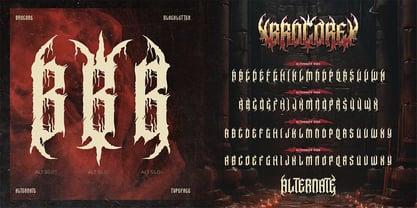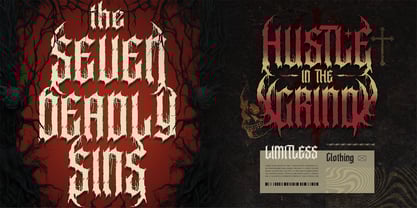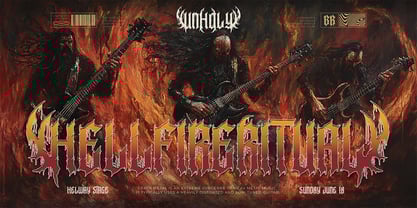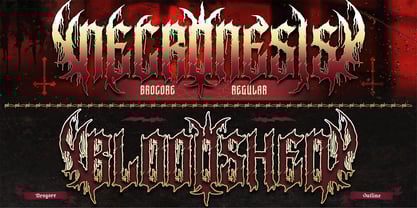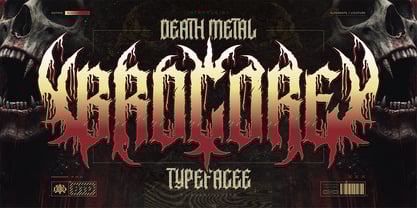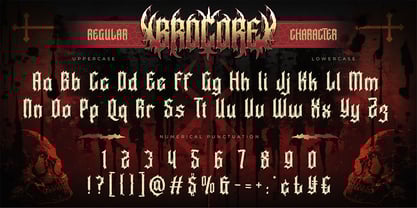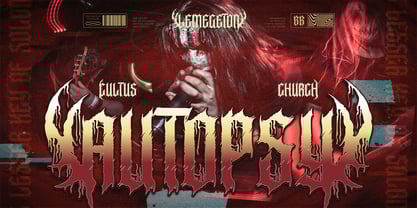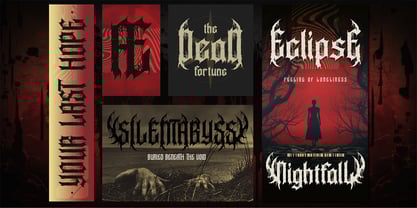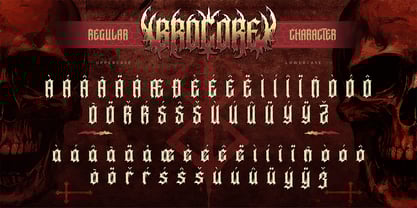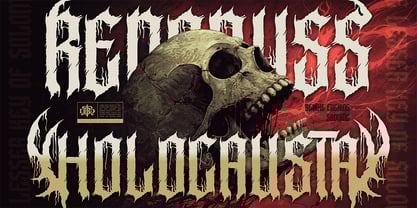
Brocore
von Burntilldead
Die Schriftfamilie Brocore wurde von Eric Kurniawan entworfen und von Burntilldead veröffentlicht. Brocore enthält 2 Stile und Familienpaketoptionen.
Brocore is a brutal death metal blackletter typeface made for extreme visuals. Inspired by underground metal logos, gothic lettering, and dark horror aesthetics, this font is sharp, aggressive, and unapologetically bold. Each letter is designed with dramatic spikes, dripping edges, and strong gothic structure—perfect for heavy branding and high-impact typography. Brocore comes with Regular and Outline styles, plus alternate characters and ligatures to give you more creative freedom when designing logos or band names. This typeface is ideal for projects that need a dark, intense, and rebellious vibe. Perfect for: death metal & black metal band logos, album covers & music posters, festival and gig flyers, streetwear & merch design, tattoo-inspired artwork, horror movie titles, dark branding & edgy packaging